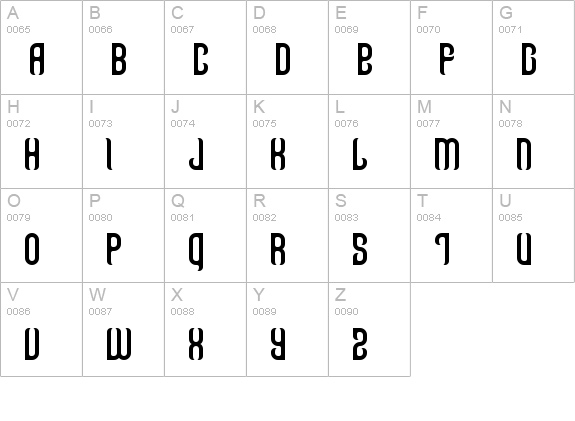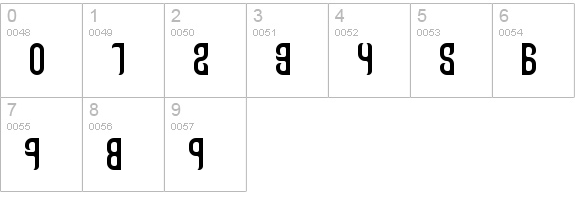
Talismanica Font Details
Talismanica font is a mesmerizing display typeface that exudes elegance and sophistication. Its intricate details and graceful curves make it perfect for adding a touch of magic to your designs. Inspired by mystical symbols and ancient manuscripts, Talismanica font brings a sense of mystery and enchantment to any project. This unique font is freely available to download at FontsMarket.com, allowing you to easily incorporate its mystical charm into your designs. Whether you're working on branding, invitations, or any other creative project, Talismanica font is sure to captivate your audience and leave a lasting impression. Unlock the power of this enchanting font and let your creativity soar with Talismanica.